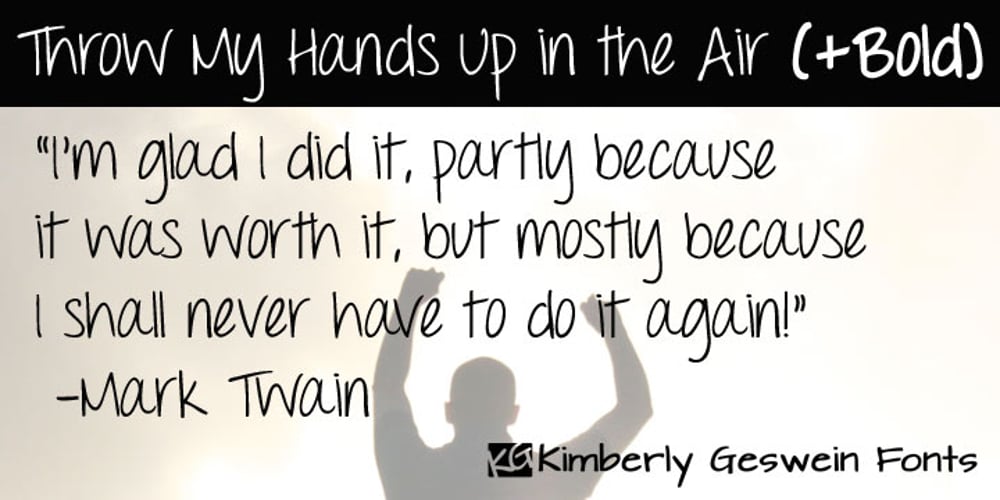
Throw My Hands Up In The Air
Throw My Hands Up In The Air font
Throw My Hands Up In The Air Font Family was designed by Kimberly Geswein and published by Kimberly Geswein. Throw My Hands Up In The Air contains 2 styles and family package options. Cute, messy (yet still legible) teen girl handwriting with flair.